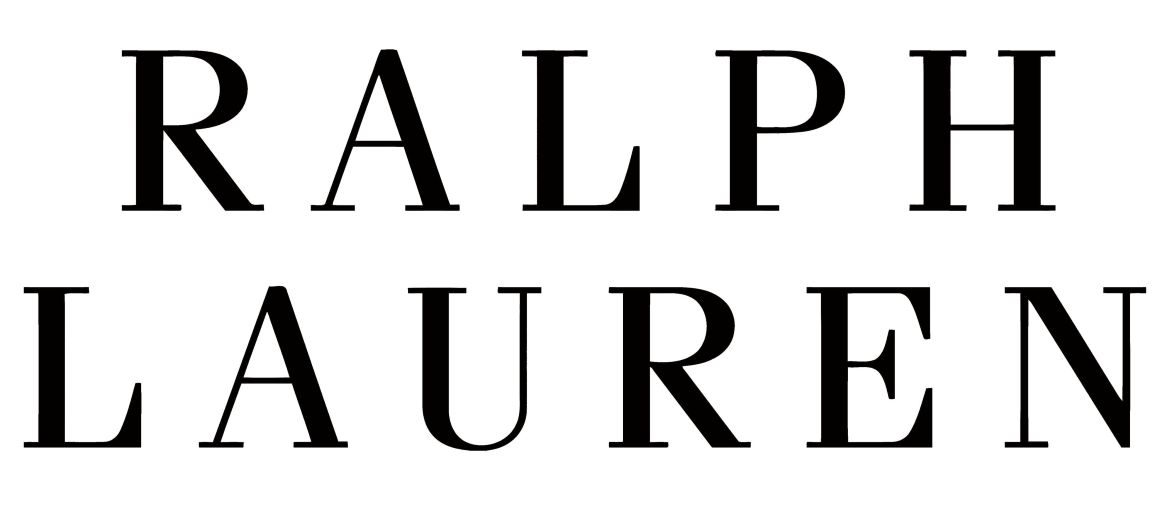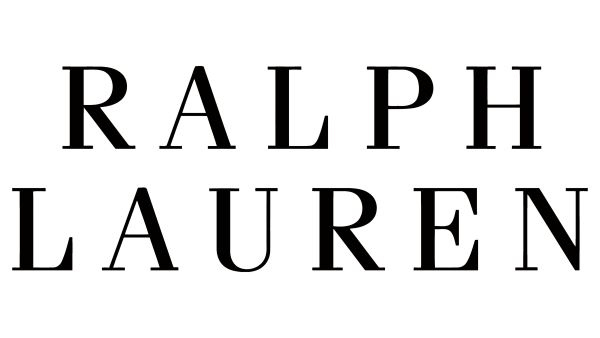
Ralph Lauren Font
What Font is Ralph Lauren?
The Ralph Lauren font is primarily based on ITC Fenice Pro Regular, a refined serif typeface created by ITC. This commercial font is known for its elegant curves, classic structure, and luxurious presence—perfectly matching the timeless aesthetic of the Ralph Lauren brand. For designers who want a similar look without the licensing cost, we’ve also found a free alternative font that closely captures the same sophisticated feel.
About Ralph Lauren
Ralph Lauren is an iconic American fashion brand founded in 1967 by designer Ralph Lauren. What began with a line of men’s ties quickly expanded into a global lifestyle empire known for its preppy elegance, Polo shirts, classic tailoring, and premium accessories. The brand has become synonymous with American luxury, blending heritage, craftsmanship, and modern refinement. Today, Ralph Lauren continues to influence fashion worldwide with its timeless, aspirational style.